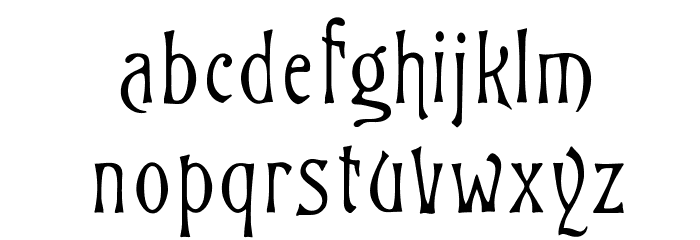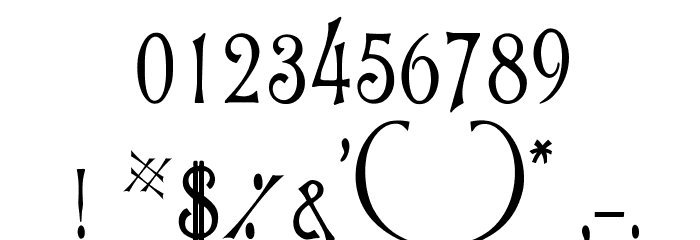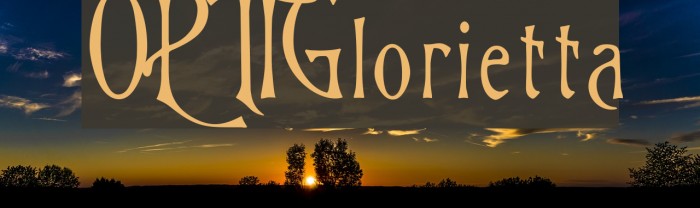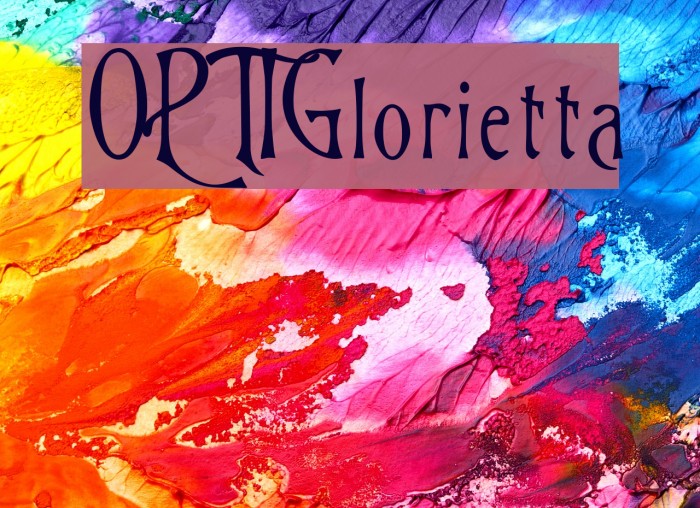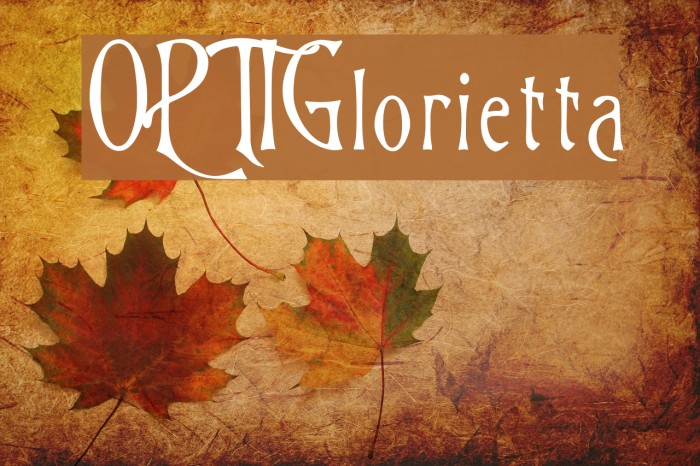
OPTIGlorietta Font
This font features a unique and artistic design with elongated and slightly curved strokes, giving it a whimsical and decorative appearance. The uppercase letters are particularly distinctive, with some characters incorporating unusual shapes and flourishes that add to its artistic flair. The lowercase letters maintain a more consistent style, yet still carry the playful essence of the font. Numbers and special characters are designed to match the overall aesthetic, making this font suitable for creative and expressive projects. The font's style is reminiscent of hand-drawn or calligraphic lettering, making it stand out in any design.
A whimsical and decorative font with artistic, elongated strokes and unique character shapes.
- Proposed Projects: Ideal for creative projects such as invitations, posters, branding, and any design requiring a playful and artistic touch.